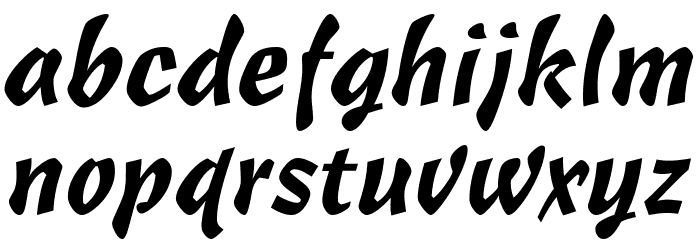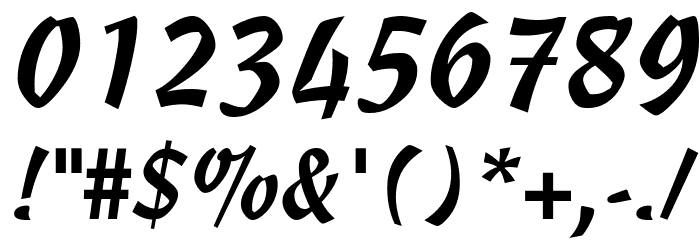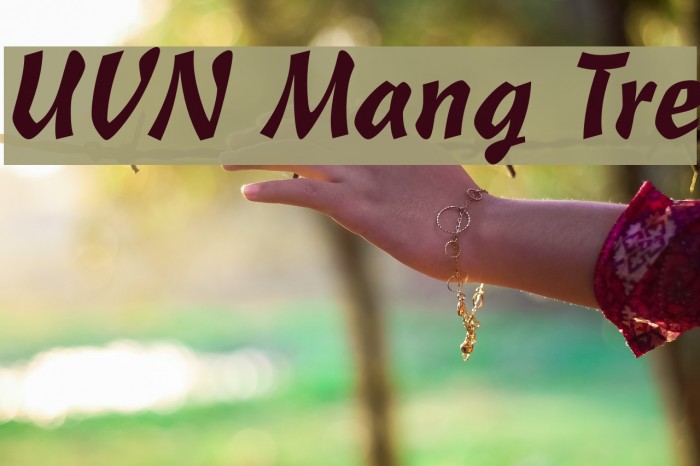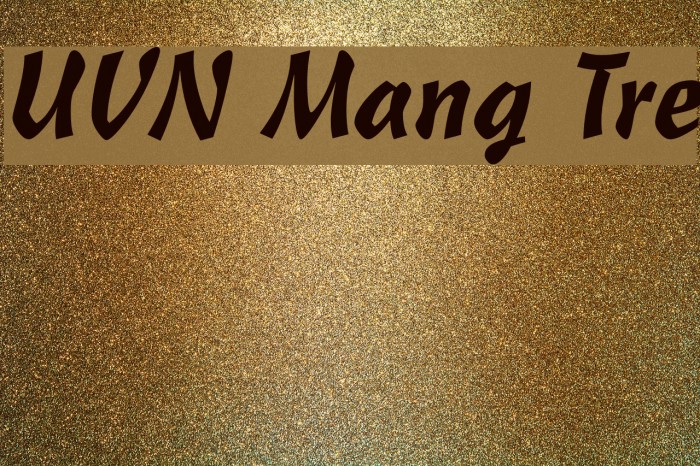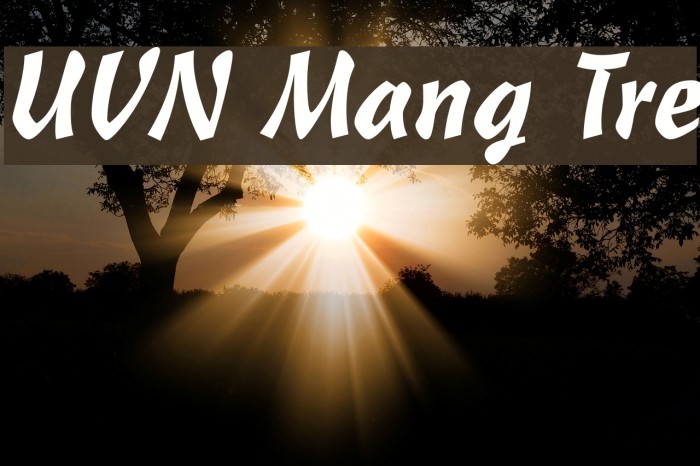
UVN Mang Tre Font
This font features a bold and dynamic script style with a modern flair. The characters are slightly slanted, giving a sense of movement and energy. The strokes are thick and consistent, providing a strong visual impact. The uppercase letters are particularly striking, with unique flourishes that add a touch of elegance. The lowercase letters maintain the same boldness, ensuring readability while preserving the artistic style. Numbers and special characters are crafted with the same attention to detail, making this font versatile for various applications.
A bold, dynamic script font with a modern and energetic style.
- Proposed Projects: Ideal for branding, posters, headlines, and creative projects that require a strong visual impact.